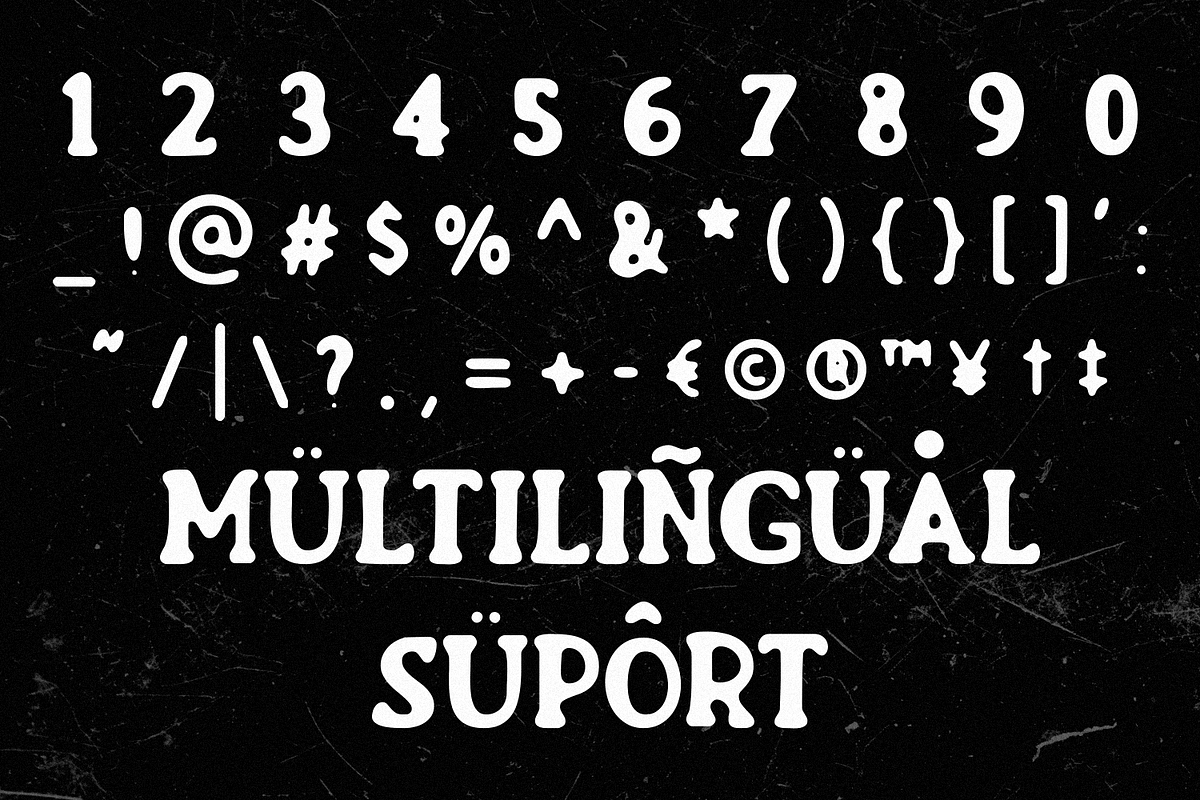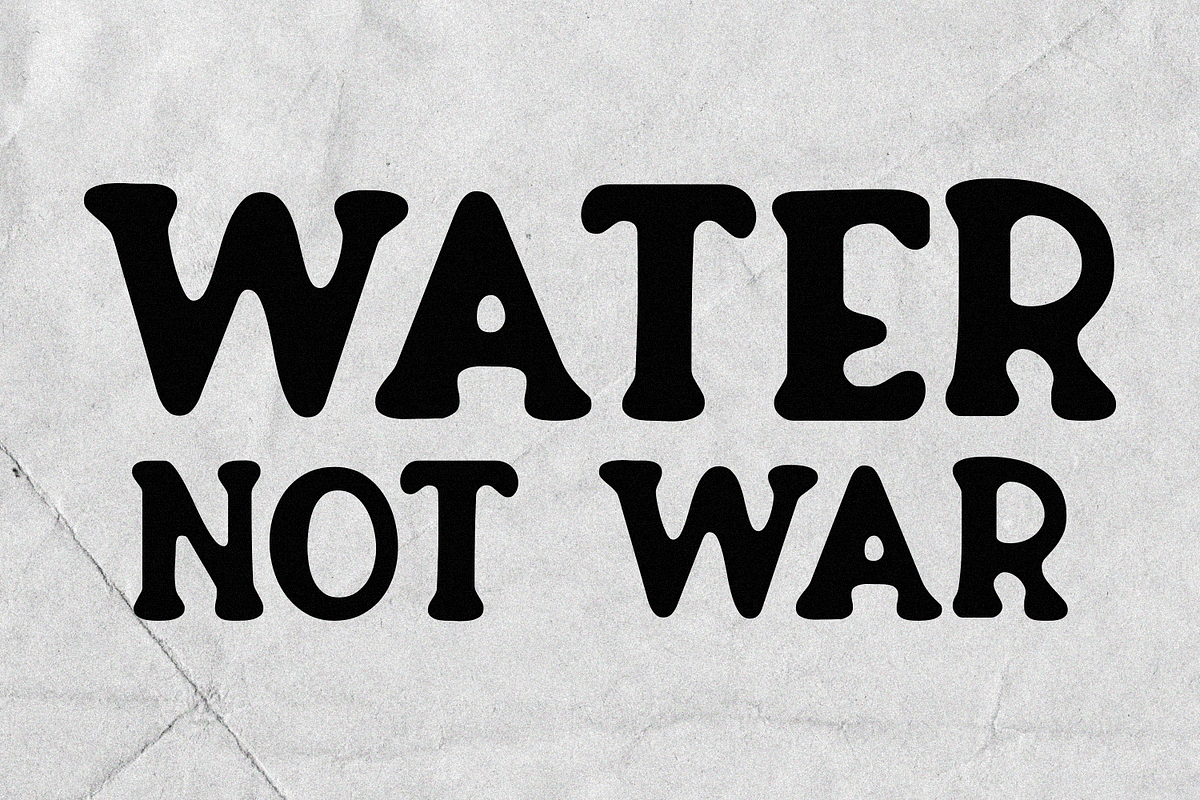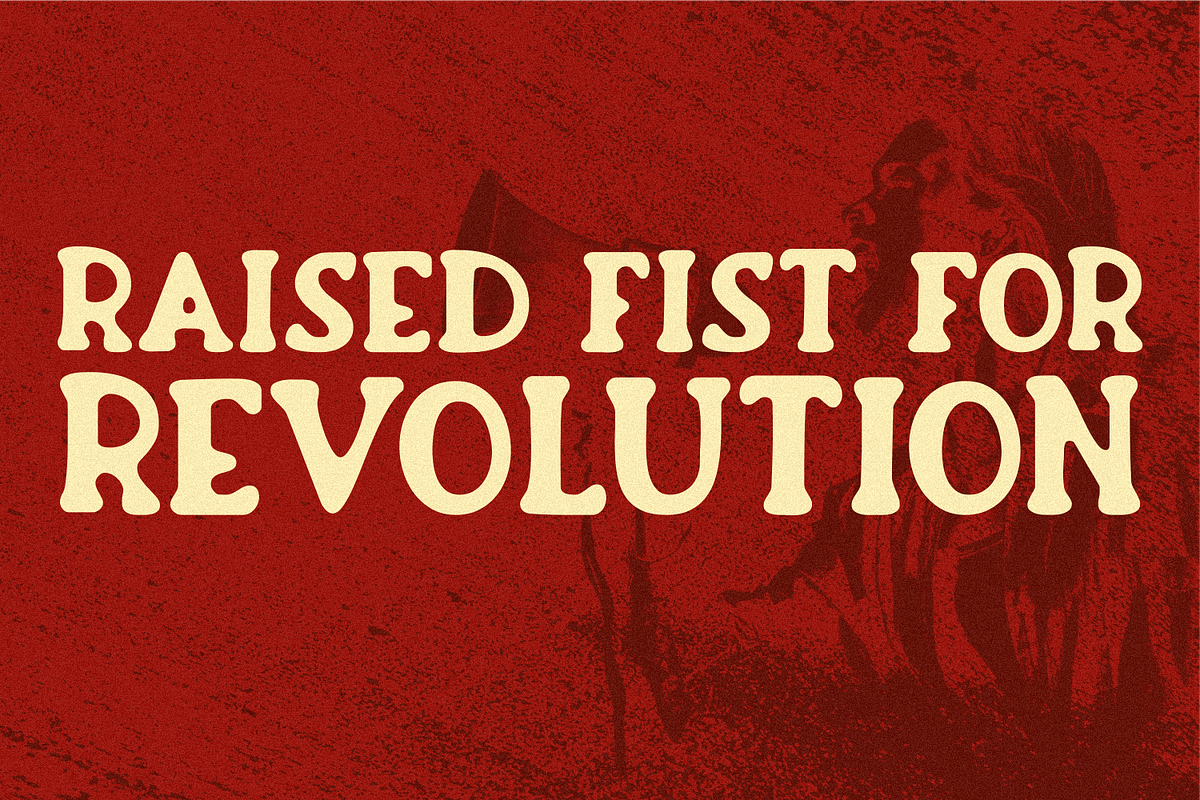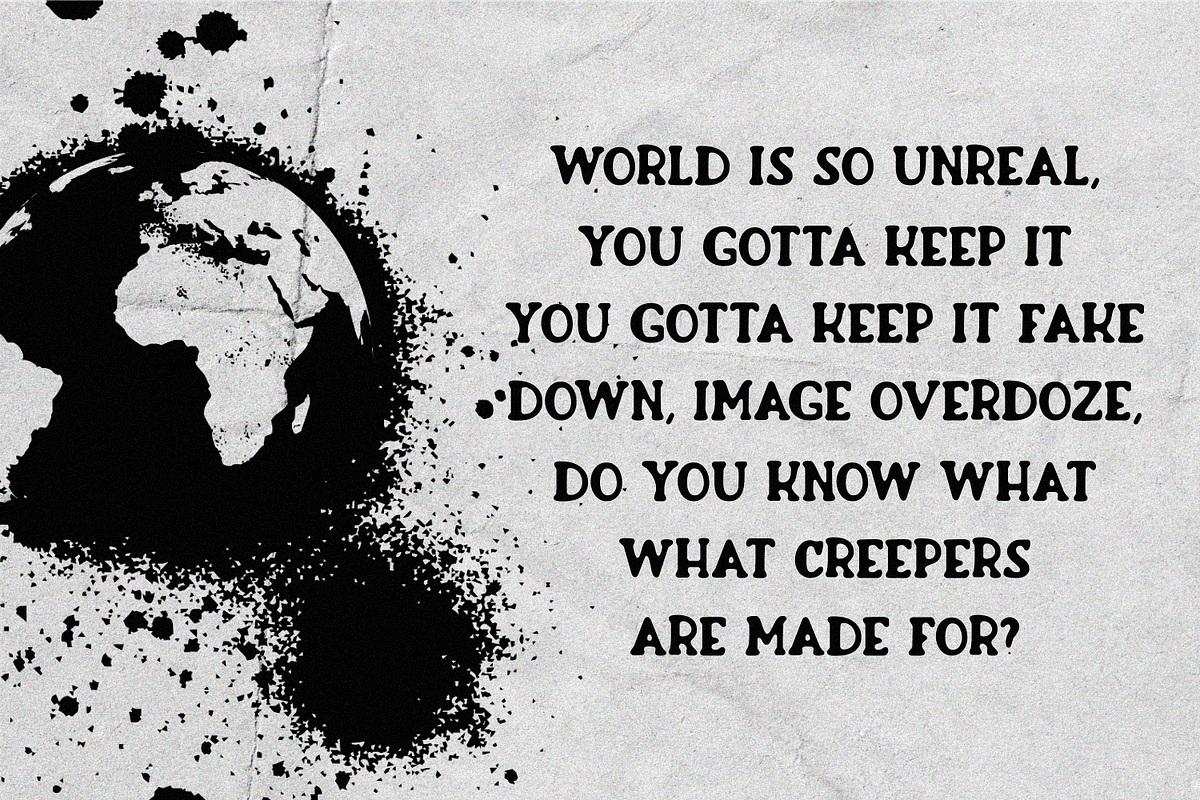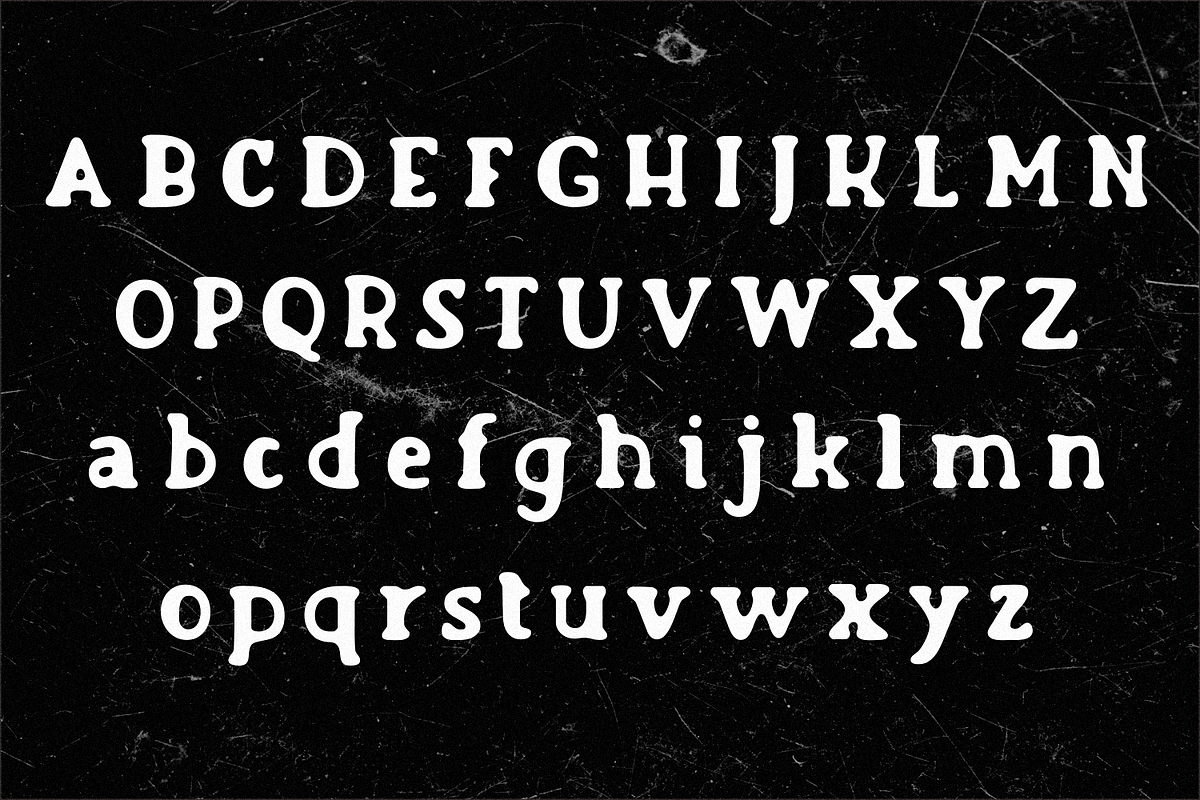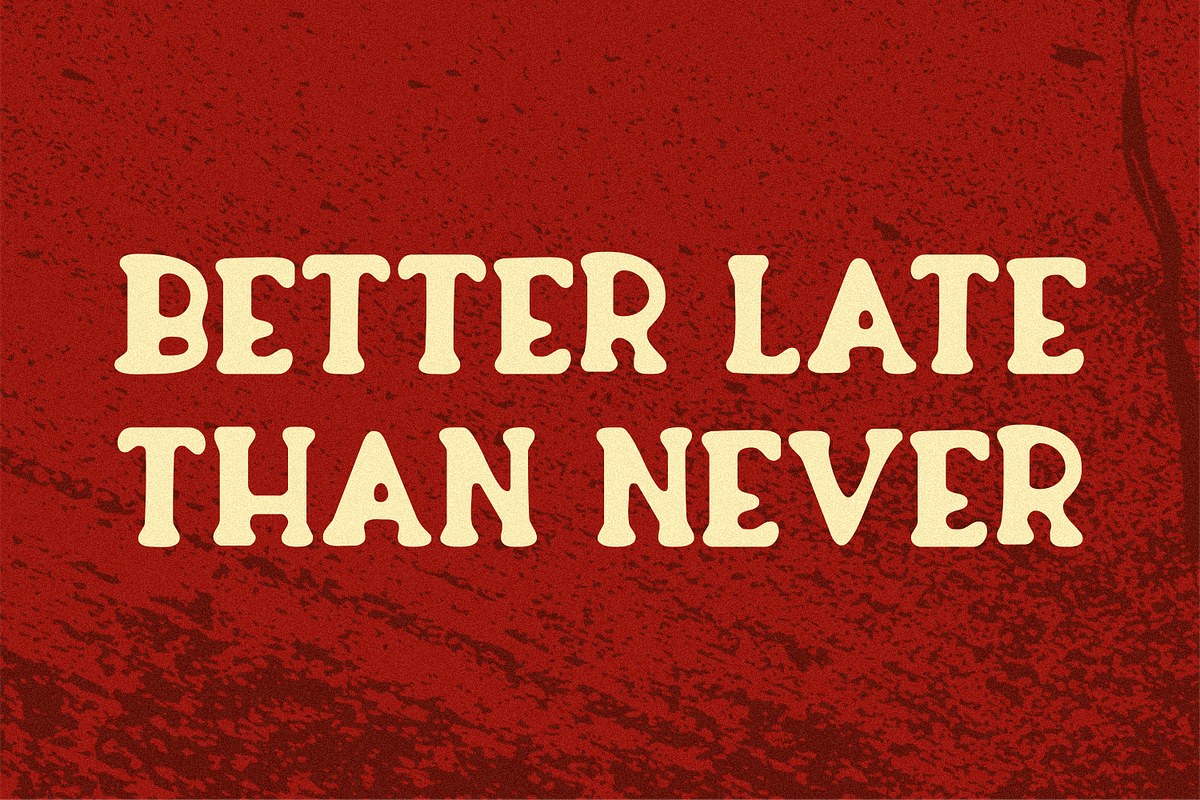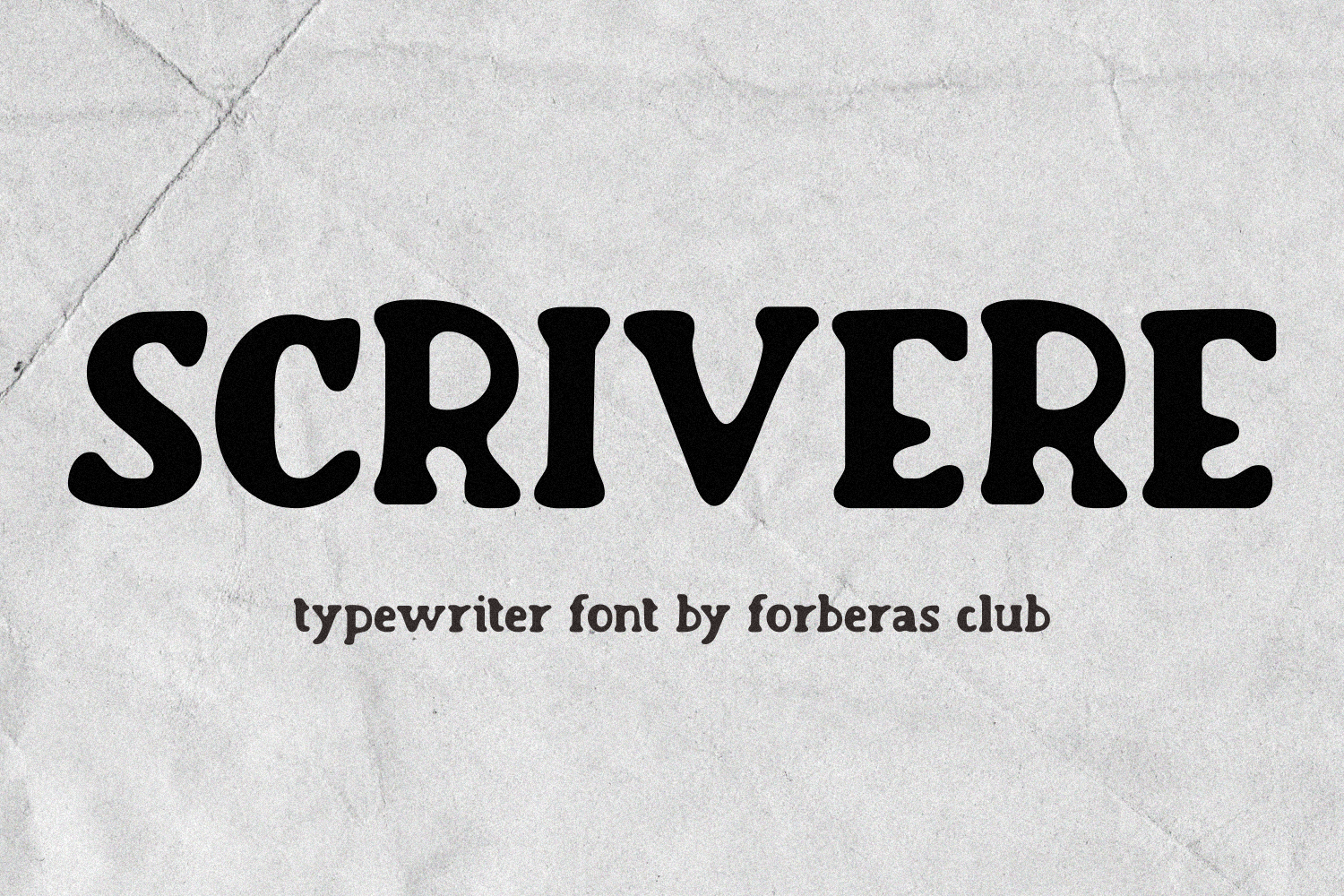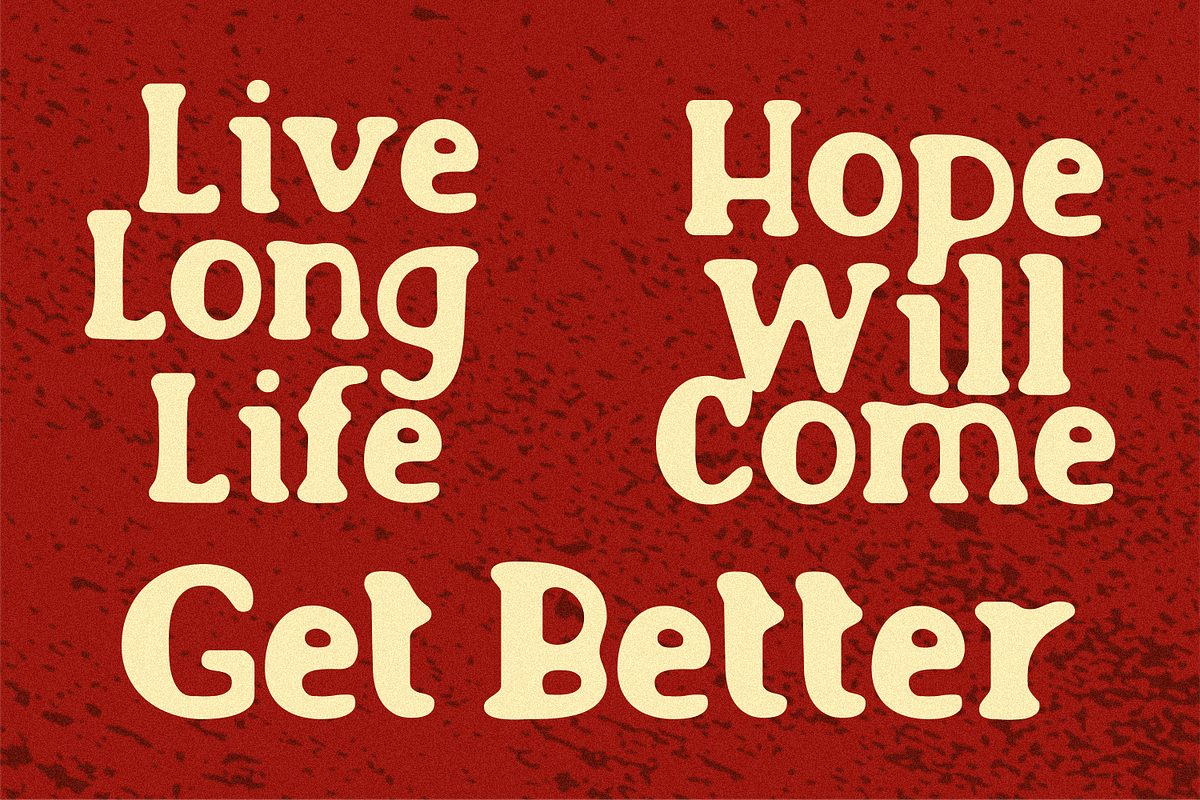
Scrivere Font
Introducing Scrivere by Forberas Club
Scrivere is a Handwritten Script font that will make your designs look classic, Farmhouse, Boho, and Feminine. It is a great font for events, Wedding Project, signature, album covers, logos, magazines, advertisements, Crafting Idea but it also works great for other projects. Add it to your fonts library, and it will enhance your creativity!
Scrivere is best for:
- logos, branding, & Signatures.
- Flyers, Album cover, Magazine, & Advertisements.
- Website design , design blogs.
- Quote graphics for social media. - and also it works great for other projects.